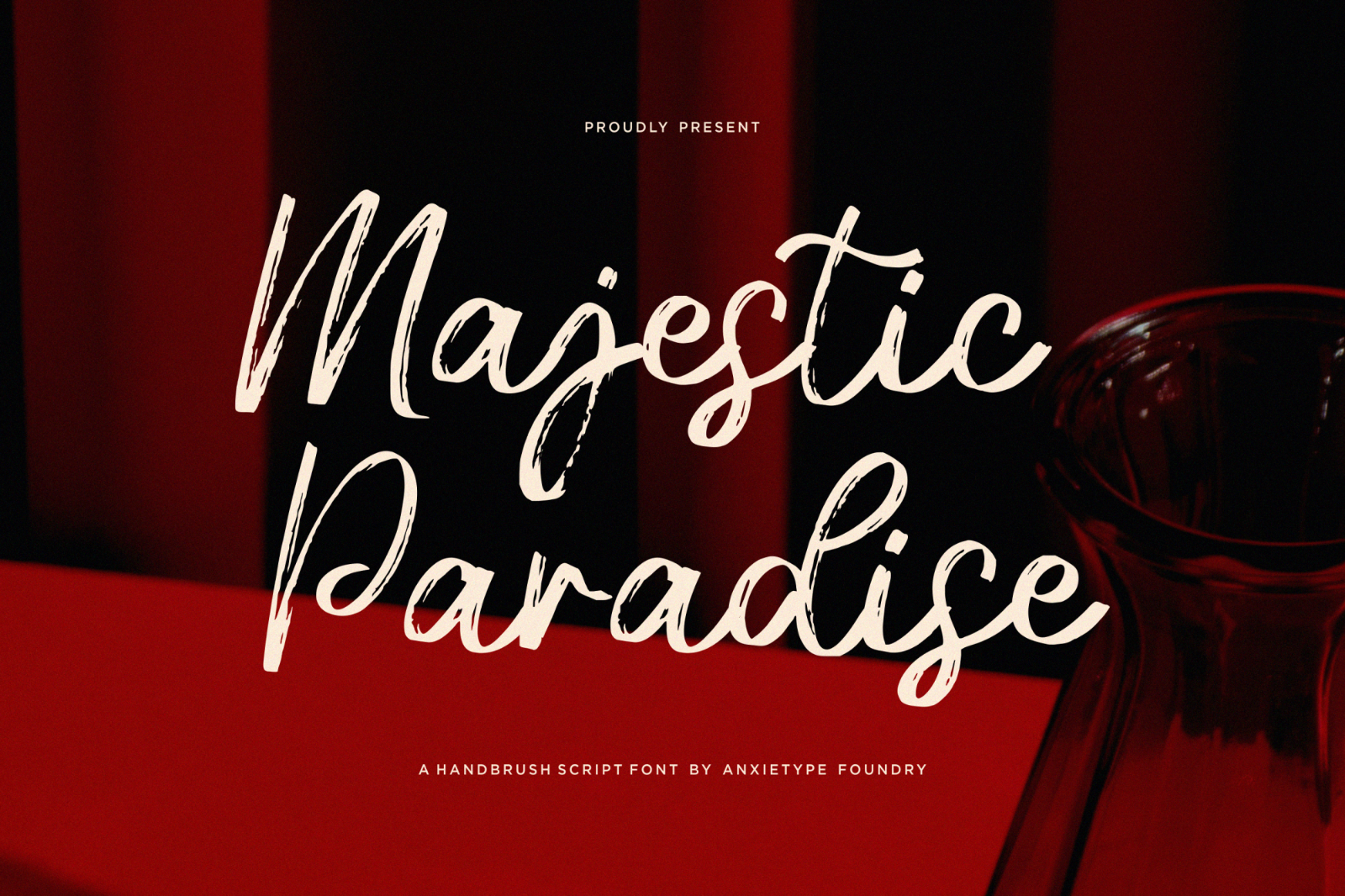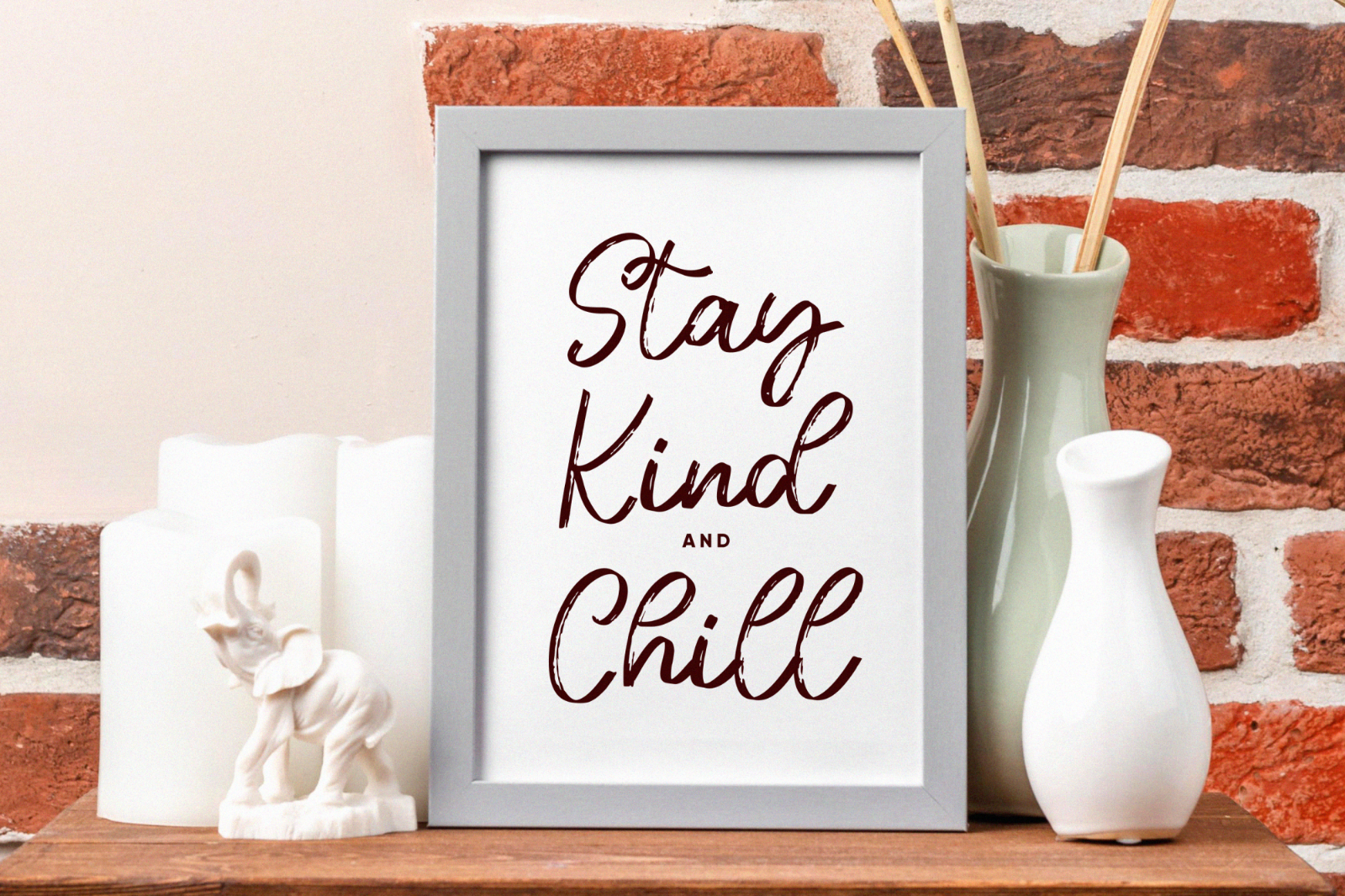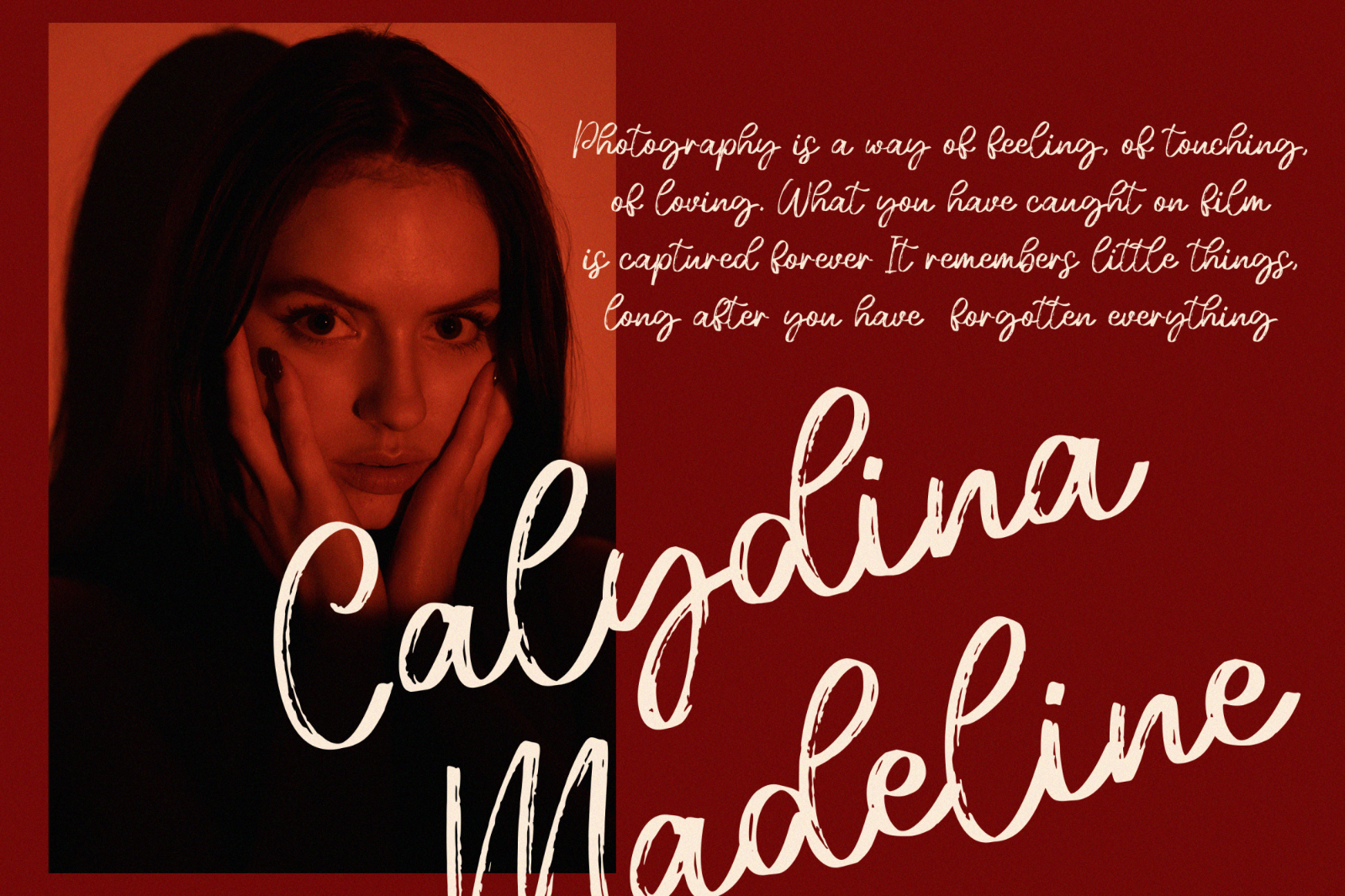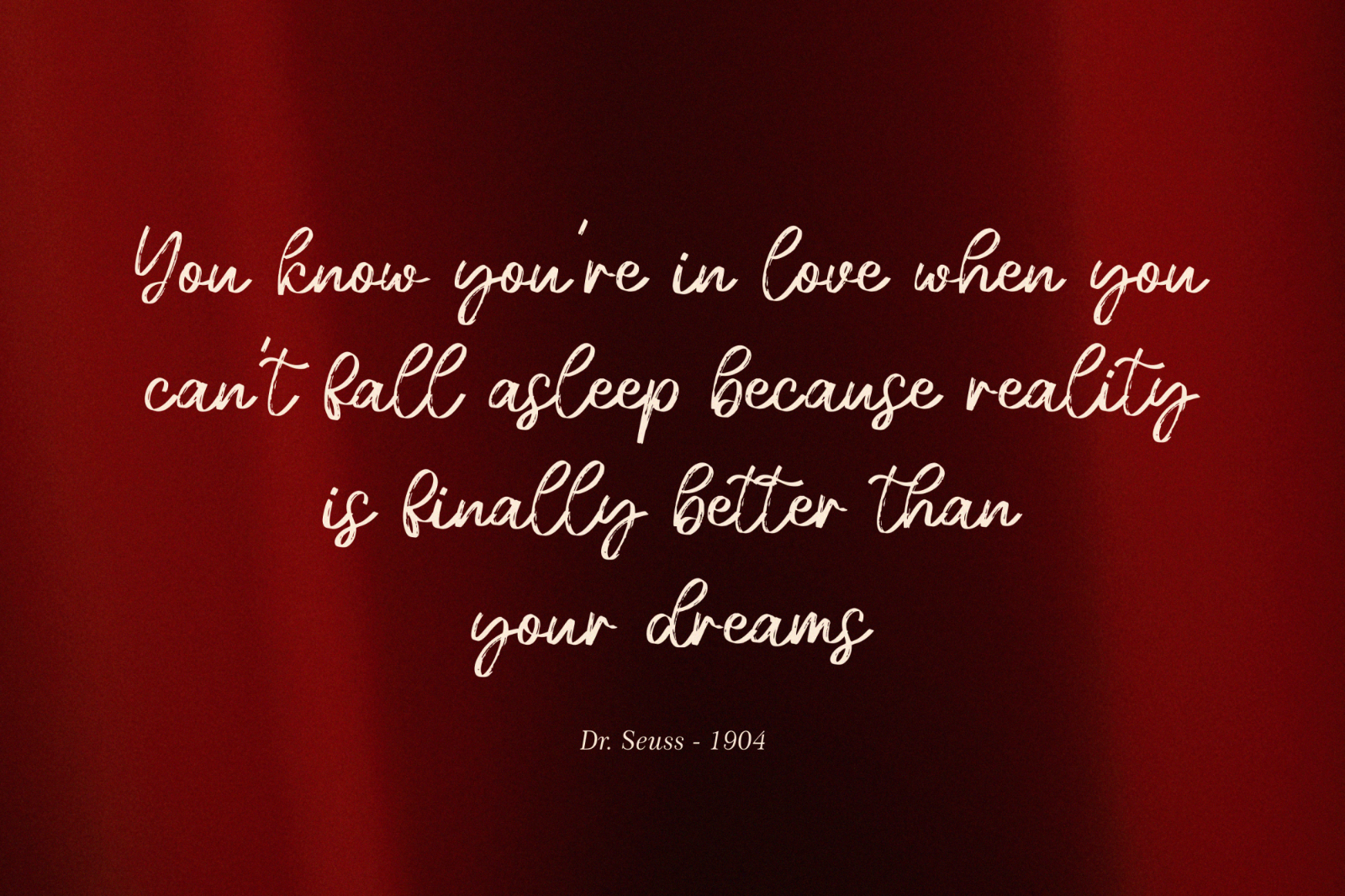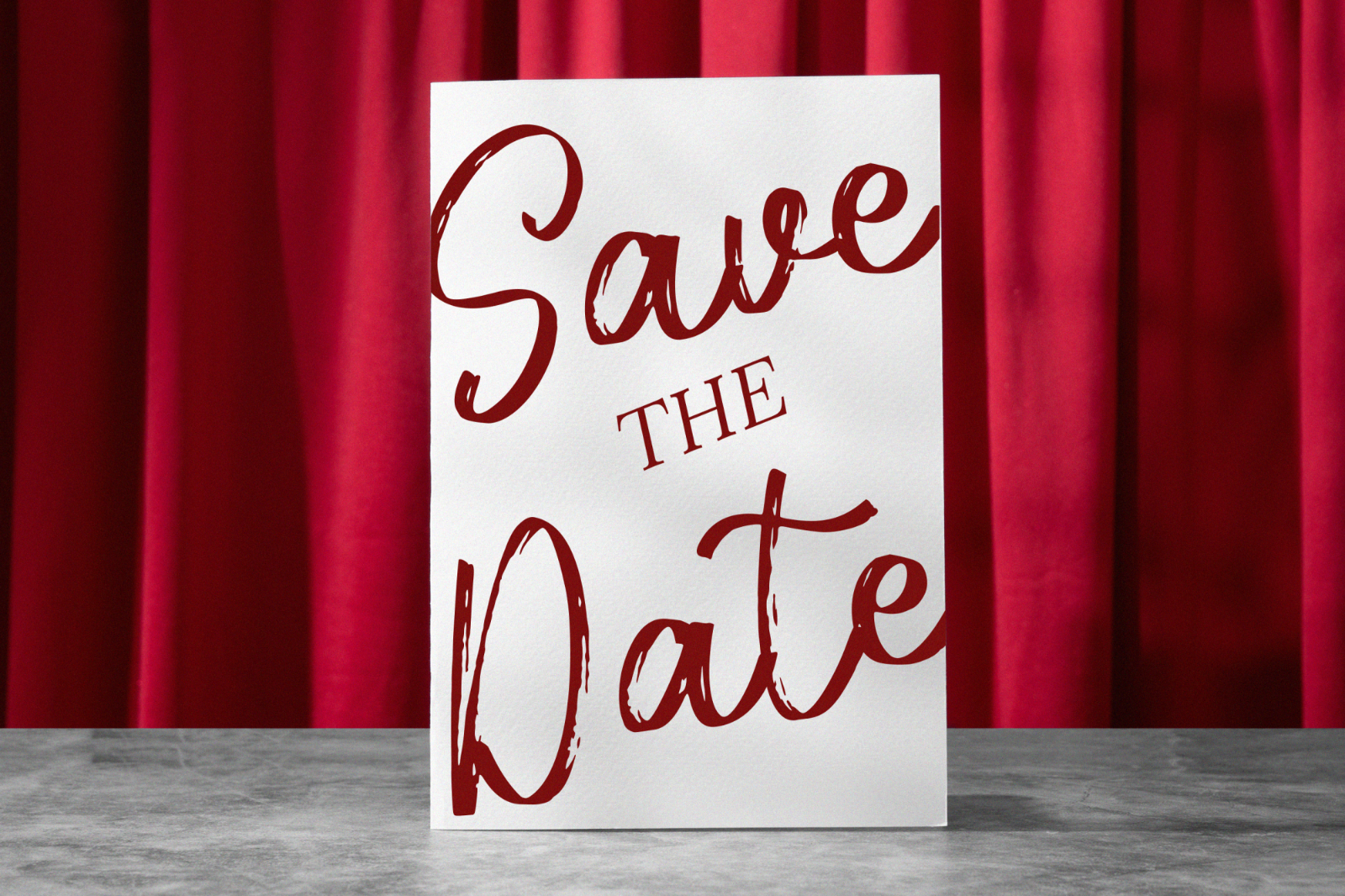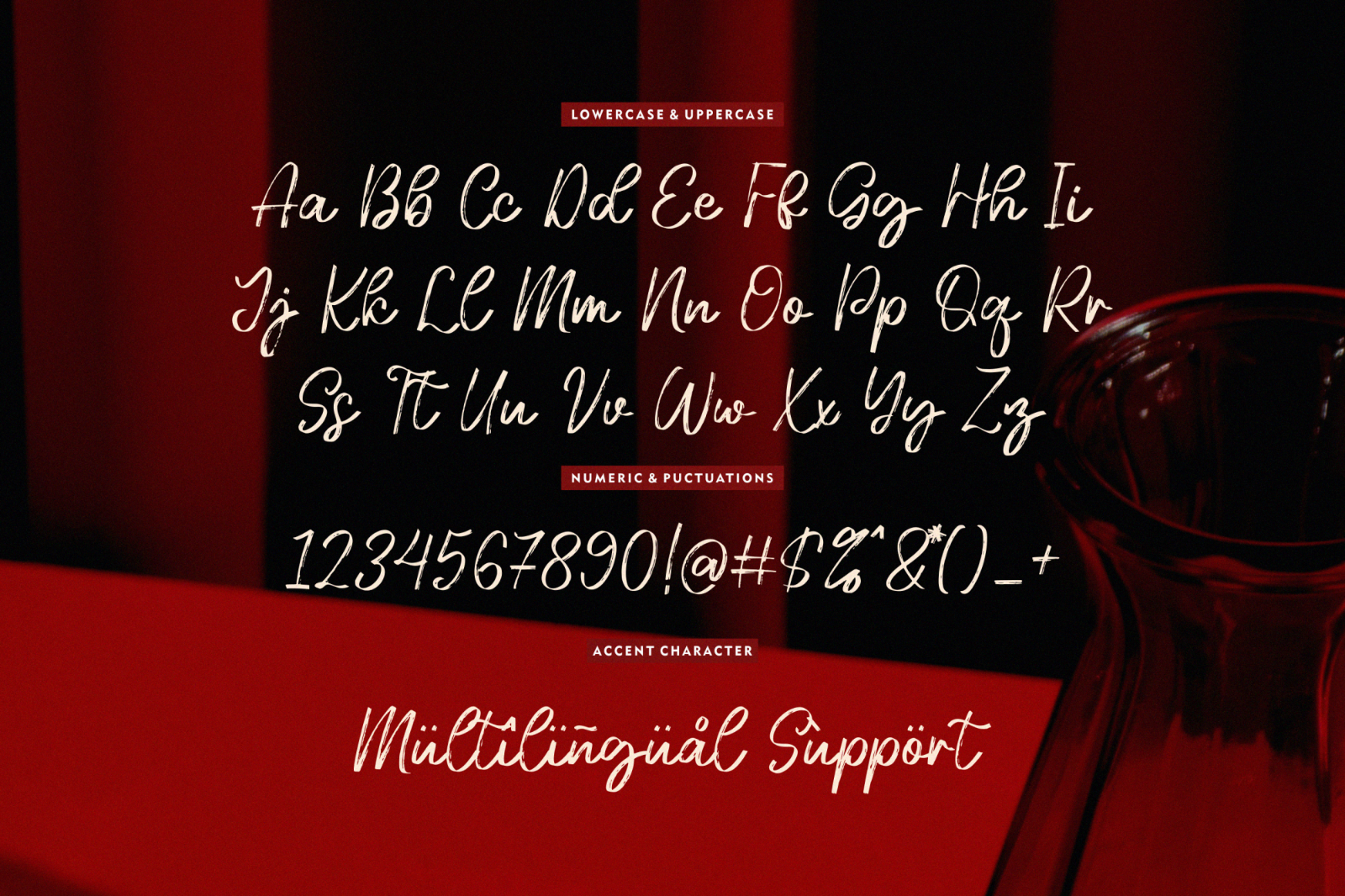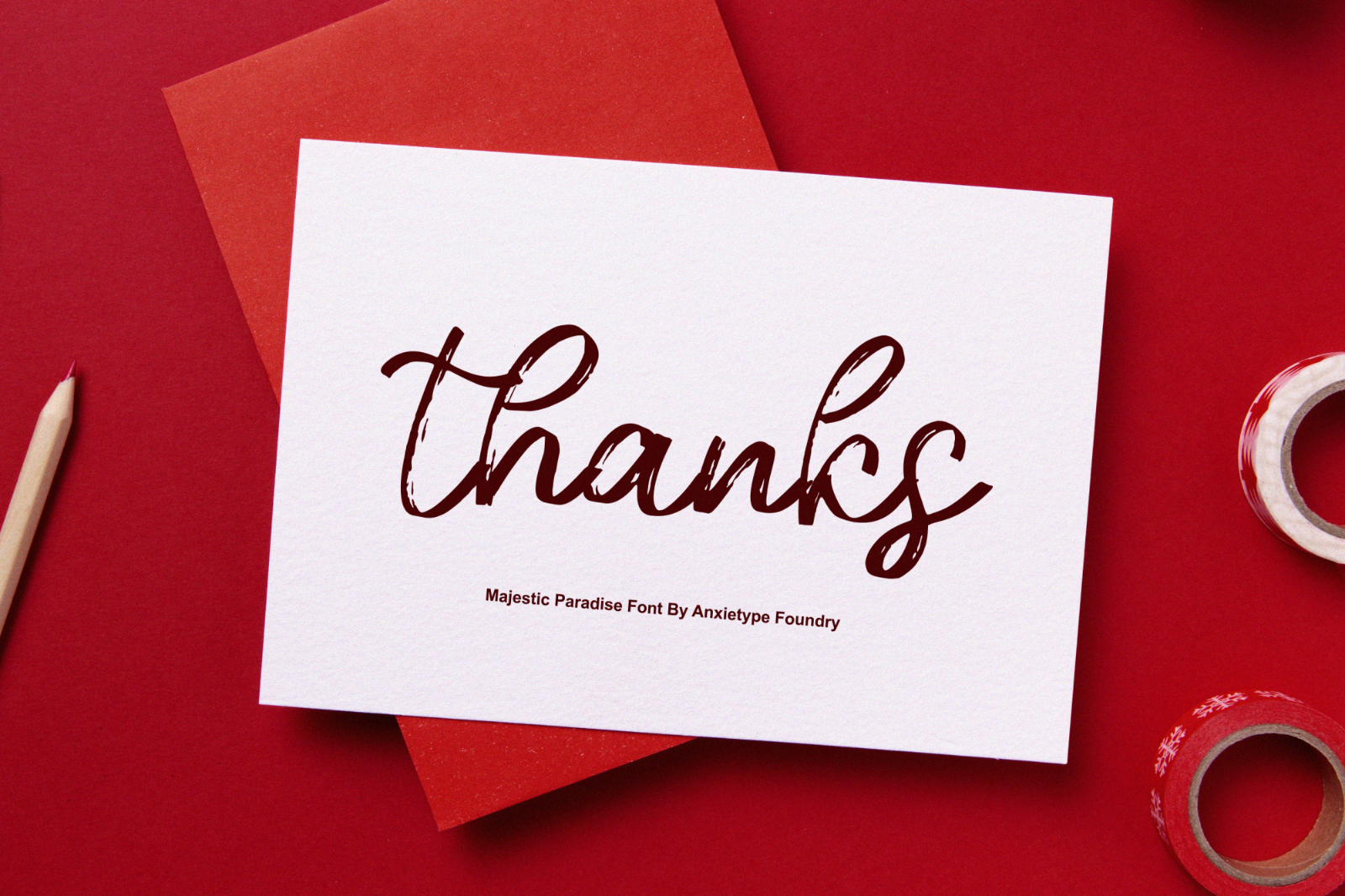
Introducing Majestic Paradise - an exquisite handbrush crafted font by Anxietype Foundry. With its pure aesthetic and simple elegance, it becomes a perfect choice for diverse applications. Whether it's gracing the pages of popular magazines or adding a personal touch to social media posts, Majestic Paradise effortlessly captures attention. It's equally beautiful when illuminating your branding project, breathing life into product packaging, or bringing a touch of poetic elegance to wedding ceremonies. Majestic Paradise isn't just a font - it's a tool to express words against any backdrop with a unique style and tasteful charm.